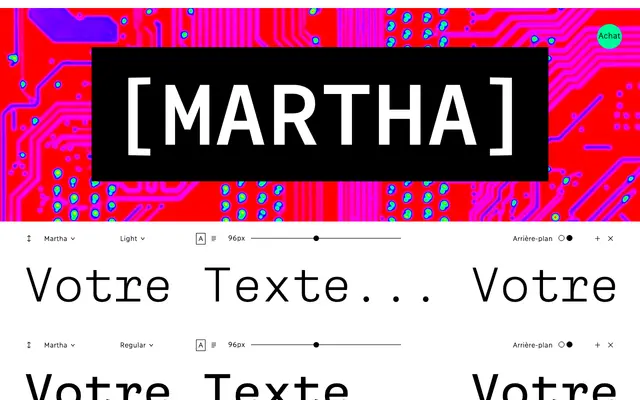
Martha
Coppers and Brasses · Étienne Aubert Bonn, Alexandre Saumier Demers · 2014
Martha specimen from Coppers and Brasses
A fixed-width grotesque with four weights, curved inward terminals and a complete character set including small capitals.
Designed by Étienne Aubert Bonn and Alexandre Saumier Demers and released in 2014, Martha fuses grotesque sans-serif aesthetics with monospaced functionality across Light, Regular, Bold and Black weights. Curved inward terminals give it a lively, distinctive presence that sets it apart from utilitarian coding faces. The unusually complete character set for a monospaced typeface includes small capitals, and even an interrobang.
Martha is explicitly described as a fixed-width grotesque, combining the aesthetics of a grotesque sans-serif with monospaced functionality. The curved terminals and lively character give it a grotesque sans identity within a monospaced structure.